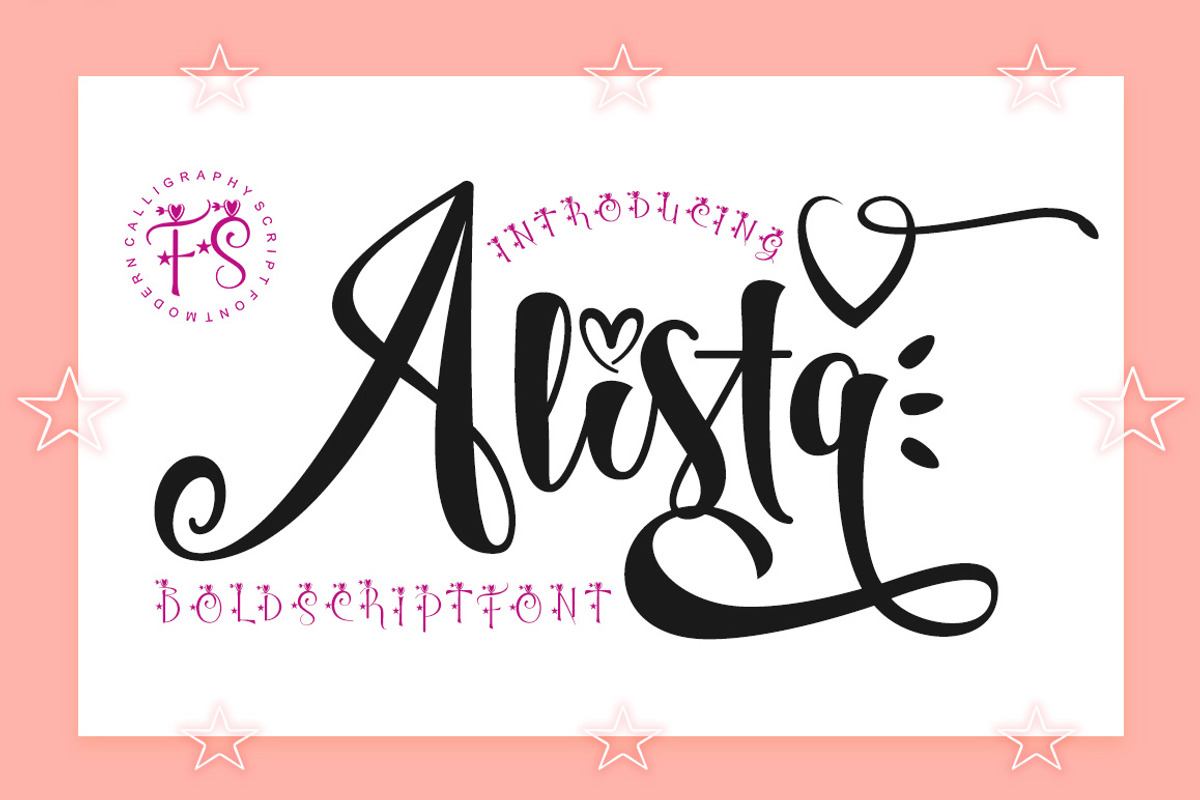
Alista Script Font Free Download is an elegant and flowing handwritten script font designed to add a touch of luxury and charm to your work. With its smooth curves, graceful loops, and natural calligraphy feel, Alista is perfect for wedding invitations, branding, greeting cards, feminine logos, blog headers, and high-end packaging.
This font includes stylish ligatures and alternates to help you create a personalized, custom-lettered look. Whether you're designing for print or digital, Alista delivers beauty and sophistication with every stroke.